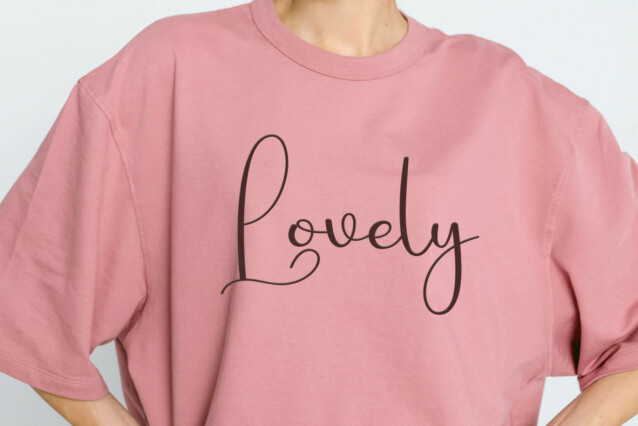
Birthday Thinking Script Font
Birthday Thinking Script Font is a lovely and sweet handwritten script font. This gentle font will look gorgeous on a variety of design ideas. It will add a joyful and romantic touch to each of your projects!